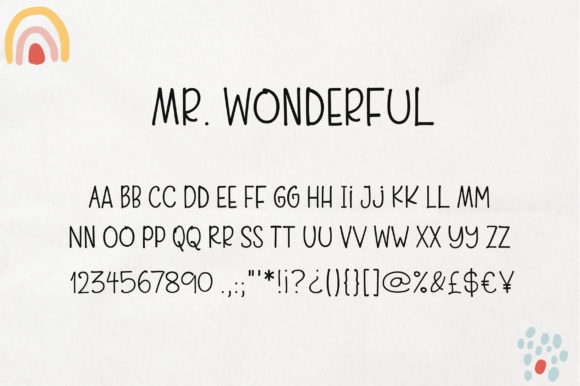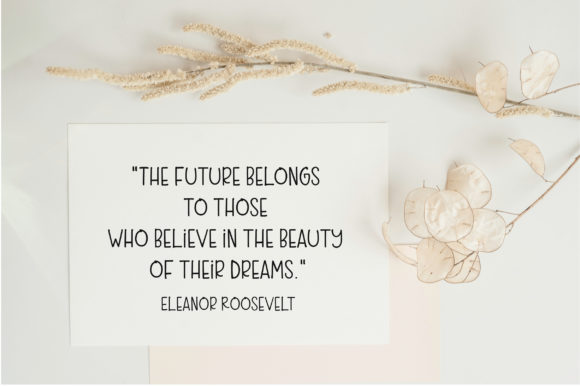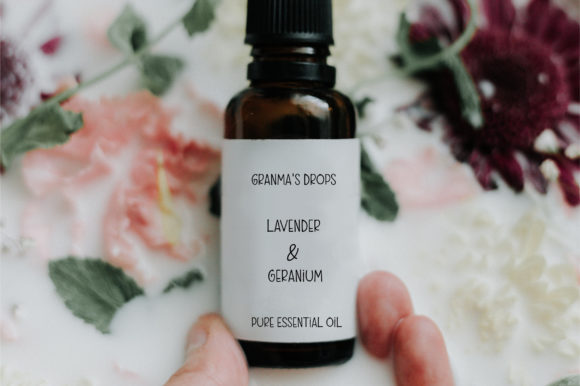
Introduction to Mr. Wonderful Font
Who else remembers the magic of creating art projects on a chalkboard in school? The sound of chalk scratching against the board, the smell of the chalk dust, and the sense of accomplishment when our creation turned out just right. For many of us, those simple moments sparked a lifelong love of creativity and self-expression. And now, with the Mr. Wonderful Font, you can relive that magic in your own designs.
As a designer, you’re always on the lookout for unique and high-quality resources to elevate your creative projects. That’s where the Mr. Wonderful Font comes in – a charming, handwritten font that’s perfect for adding a personal touch to your chalkboard quotes, teaching materials, and more. With its authentic look and feel, this font is sure to make your designs stand out from the crowd.
Key Features of Mr. Wonderful Font
- High-quality design: Mr. Wonderful Font is a premium font perfect for creative projects, offering a unique and stylish look.
- Unique characteristics: The font features a bold and modern design, with distinctive letterforms and a wide range of stylistic variations.
- Perfect for branding: Mr. Wonderful Font is ideal for creating eye-catching logos, branding materials, and marketing collateral, making it a valuable design resource for businesses and entrepreneurs.
- ✨ Unique and stylish design that adds a touch of sophistication to any project
One thing to note is that the font family is relatively small, which can be a limitation when working on complex designs. Additionally, some users may find the font to be a bit too ornate for certain projects.
- ⚠️ May be too ornate for some designs
Overall, I’m impressed with the Mr. Wonderful Font. Its unique design and high-quality fonts make it a valuable addition to any designer’s toolkit. While it may have some limitations, it’s definitely worth exploring for your next creative project.
Mr. Wonderful Font is a high-quality design resource that can add a touch of sophistication to your creative project. To get the most out of it, consider the following tips:
Mr. Wonderful Font is a versatile design resource that can be used in a variety of creative projects, including:
Business cards and marketing materials.
Wedding invitations and event designs.
Graphic novels and comics.